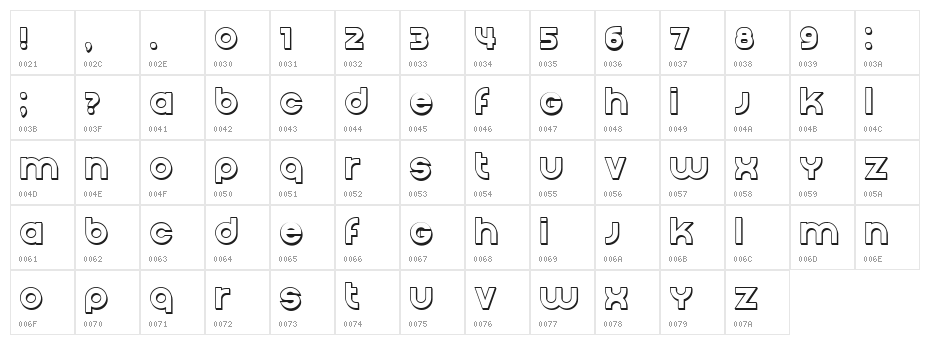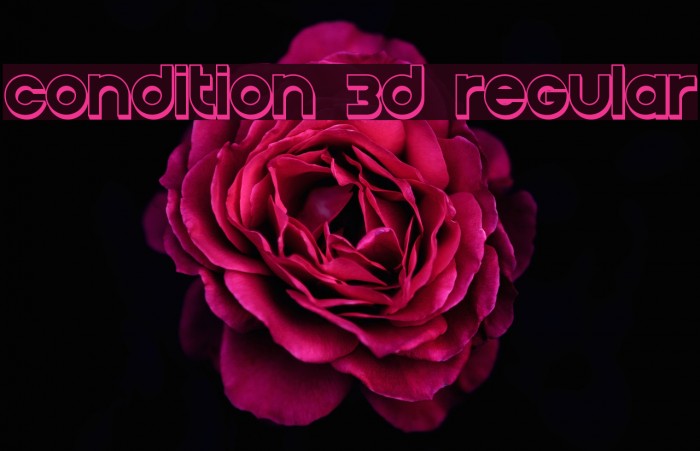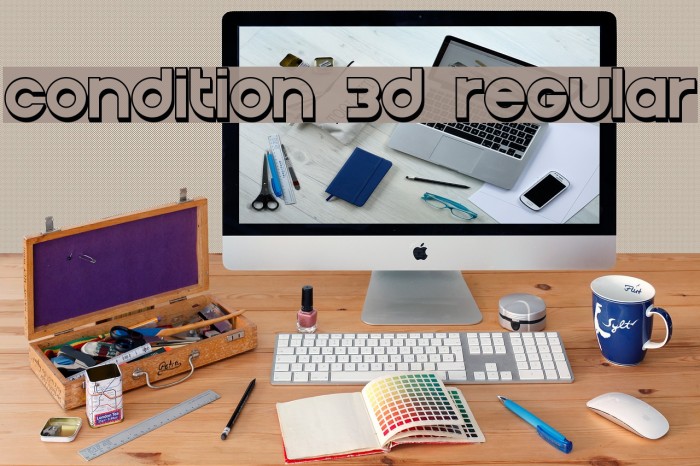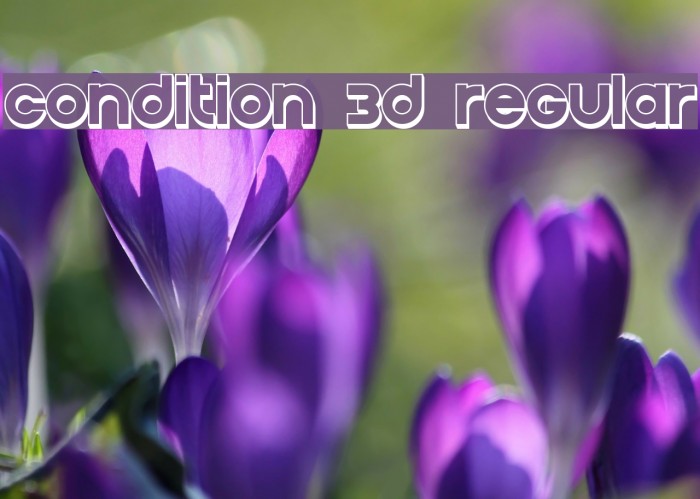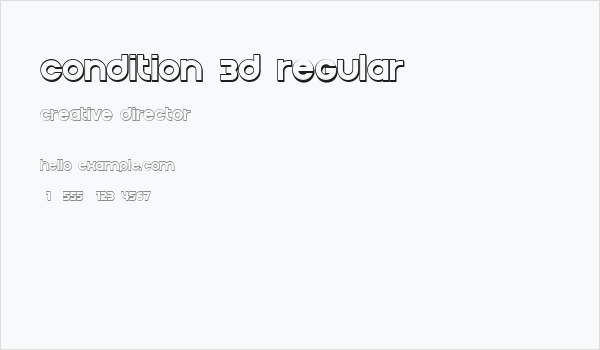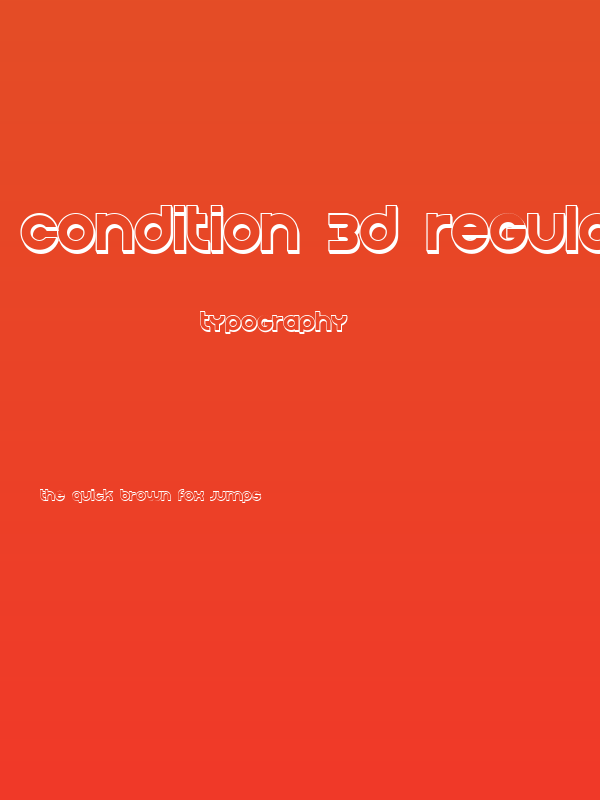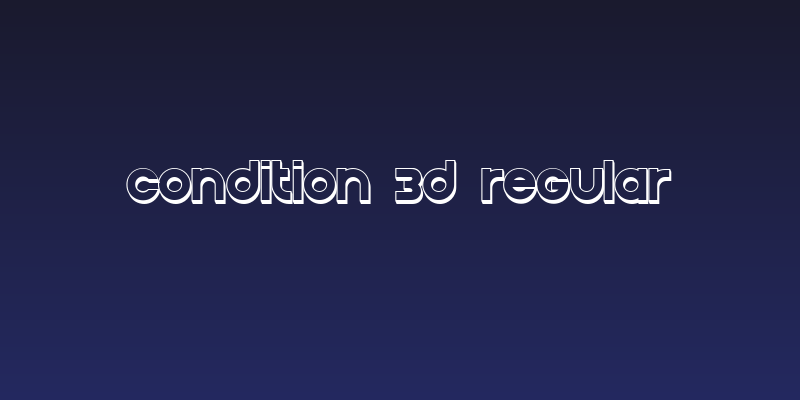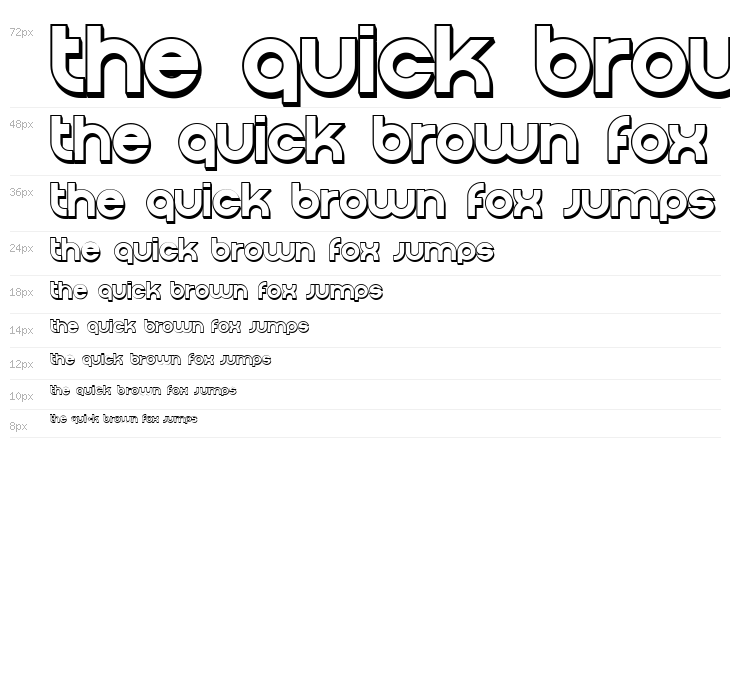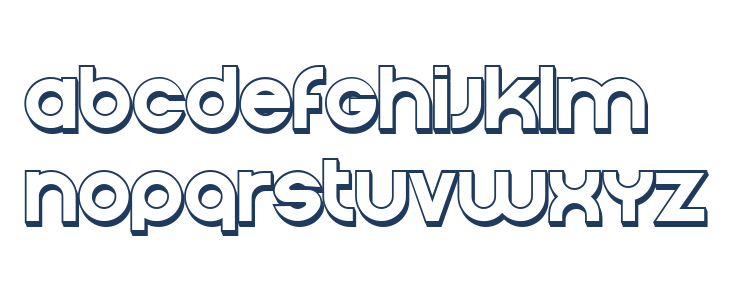
Condition 3D Regular Font
Condition 3D Regular Description
This font features a bold and playful 3D effect that gives each character a sense of depth and dimension. The letters are rounded and have a consistent stroke width, creating a uniform appearance. The 3D shadow effect is achieved through a clever use of outlines, making the characters appear as if they are popping off the page. This style is eye-catching and modern, perfect for designs that need to stand out. The font includes both uppercase and lowercase letters, numbers, and a selection of punctuation marks, ensuring versatility in its application.
| Proposed Projects | Ideal for poster designs, children's book covers, playful branding, and any project needing a fun, eye-catching typeface. |